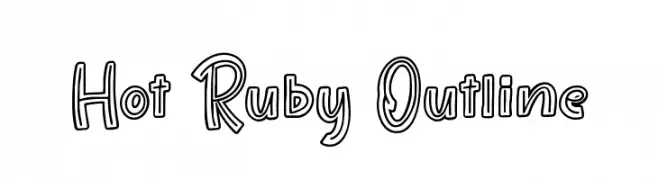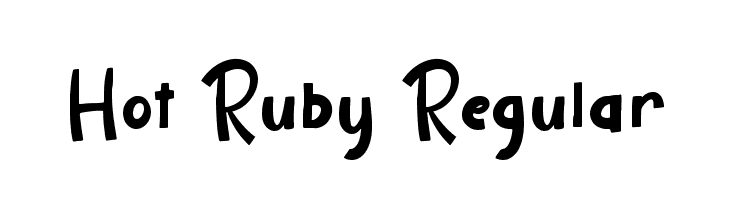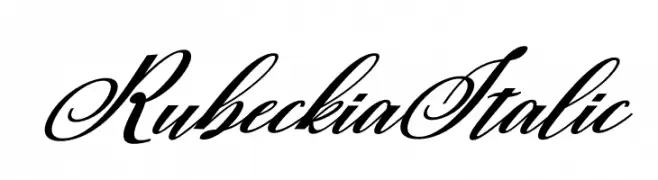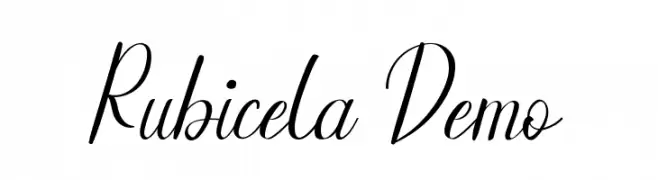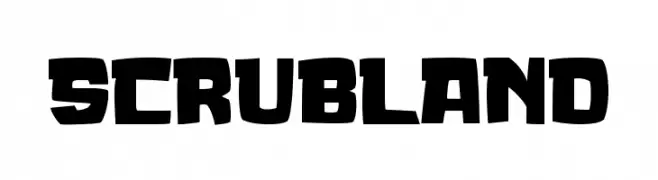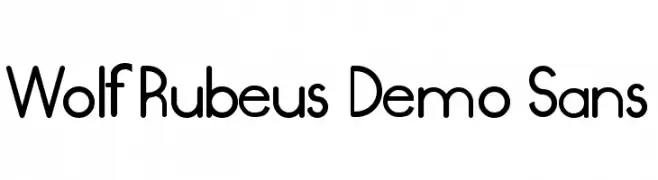
A bold, angular, and geometric font ideal for impactful headlines.
A modern sans-serif outline font with geometric and rounded characters.
A modern sans-serif font with rounded edges and a geometric style.
A dynamic brush-style font with rough, textured strokes and a modern calligraphic flair.
A graceful and modern script font with elegant curves and ornate details.
A playful, bold outline font with a lively and casual aesthetic.
A playful, bold, and handwritten-style font with rounded strokes.
A geometric, monospaced font with a modern and structured design.
An elegant, cursive script with ornate flourishes and smooth curves.
A sophisticated script font with elegant, flowing cursive letters.